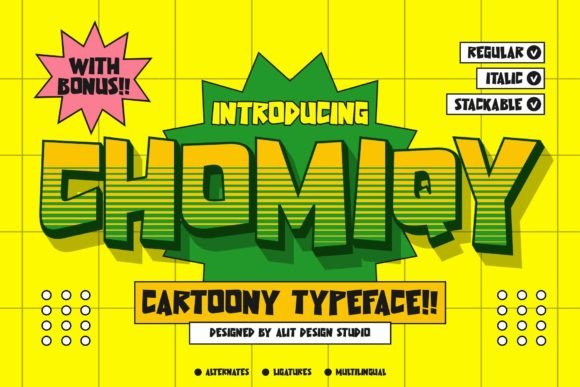
Chomiqy Font: Adding Playful Personality to Your Brand
I still remember the exact moment I realized my handmade candle business had a branding problem. I was standing at a local craft market, watching potential customers pick up my jars, read the label, and then put them back down. My product was high-quality soy wax with premium fragrance oils, but my packaging looked generic. I was using a standard system font that felt cold and corporate, completely mismatched with the warm, cozy, and authentic vibe I wanted my small business to embody. That afternoon, I decided to stop treating typography as an afterthought and started looking for a display font that could actually tell my story. That search led me to Chomiqy, and it completely changed how I approach my brand visuals.
Finding Authenticity in a Chunky Display Typeface
As entrepreneurs, we often get caught up in making things look "professional," which we mistakenly interpret as stiff or overly minimalist. But for creative businesses, professionalism also means being memorable and emotionally resonant. Chomiqy is a funky and bright display font that immediately stood out to me because it embodies playfulness without sacrificing legibility. It has a chunky, bold structure that demands attention, yet the letterforms feel handcrafted and human rather than digitally perfect.
When I first tested Chomiqy on my candle labels, the transformation was instant. The font’s inherent warmth made my product feel like something you’d find in a curated boutique rather than a big-box store. It wasn't just text anymore; it was a visual handshake. For any small business owner trying to bridge the gap between hobbyist and established brand, finding a typeface that balances fun with clarity is essential. Chomiqy provides that specific texture of authenticity that customers are constantly seeking in today's market.
Practical Applications for Packaging and Social Media
The real test of any creative font is how it performs across different touchpoints. In my journey to rebrand, I needed a versatile asset that could work as hard as I do. Here is how I integrated this playful typeface into my daily business operations:
- Product Labels and Packaging: I used Chomiqy for the scent names on my candle jars. The chunky letters are readable even on small 2-inch labels, and the bright personality helps differentiate scents visually on a crowded shelf.
- Social Media Graphics: Instagram thumbnails need to stop the scroll. Using this display font for quote cards and new product announcements increased my engagement because the text itself acts as a graphic element.
- Thank-You Cards and Stickers: Unboxing is part of the customer experience. Printing "Thank You" in Chomiqy on my package inserts adds a personal, joyful touch that encourages repeat business and social shares.
- Website Banners: I replaced my hero image headline with this typeface. It instantly communicates the mood of my shop before a visitor even reads the subtext.
For fellow creators running bakeries, cafes, or beauty brands, the applications are endless. Imagine a café menu where the daily specials pop off the chalkboard, or a skincare line where the product names feel organic and inviting. This font excels in these environments because it carries a sense of joy that aligns perfectly with lifestyle and wellness products.
Building Consistency Through Strategic Typography
One of the biggest lessons I learned during my rebrand is that consistency builds trust. Before finding Chomiqy, my visuals were all over the place. Sometimes I used a script font, other times a bold sans serif, and nothing connected. By anchoring my brand identity with this specific display font, I created a visual thread that ties everything together.
Typography affects first impressions more than we realize. When a customer sees your logo, packaging, and social posts using the same distinctive lettering style, their brain registers familiarity. That familiarity breeds comfort. Chomiqy is particularly effective for this because its unique character shapes are easily recognizable. It serves as a visual signature. However, it is important to use it strategically. Because it is a bold display font, it works best for headlines, logos, short phrases, and decorative accents. I avoid using it for long paragraphs or ingredient lists, as the chunky weight can become overwhelming in dense blocks of text.
Pairing Chomiqy for a Polished Professional Look
A common fear among non-designers is that a funky font will make a brand look childish. The secret to avoiding this is proper font pairing. Chomiqy shines brightest when it is allowed to be the star, supported by quieter, simpler typography. In my own branding, I pair it with a clean, modern sans serif font for body copy and details. The contrast between the playful, thick strokes of Chomiqy and the neutral, thin lines of a sans serif creates a sophisticated editorial look.
If you want a softer aesthetic, try pairing it with an elegant serif font for a vintage-inspired vibe, or a minimal handwritten font for added texture. Just ensure your supporting font doesn't compete for attention. The goal is hierarchy: Chomiqy grabs the eye, and the secondary font delivers the information. This balance is what separates a DIY design from a polished brand identity. It ensures your marketing materials remain readable on mobile screens and printed packaging while retaining that crucial spark of personality.
Finally, always test your typography in context. What looks great on a 27-inch monitor might be illegible on a 1.5-inch sticker or a phone screen. Print mockups at actual size before committing to a bulk order. Readability should never be sacrificed for style. When used thoughtfully, Chomiqy is more than just a pretty letterform; it is a business tool that helps communicate your brand's heart, making your products not just seen, but truly felt by your customers.